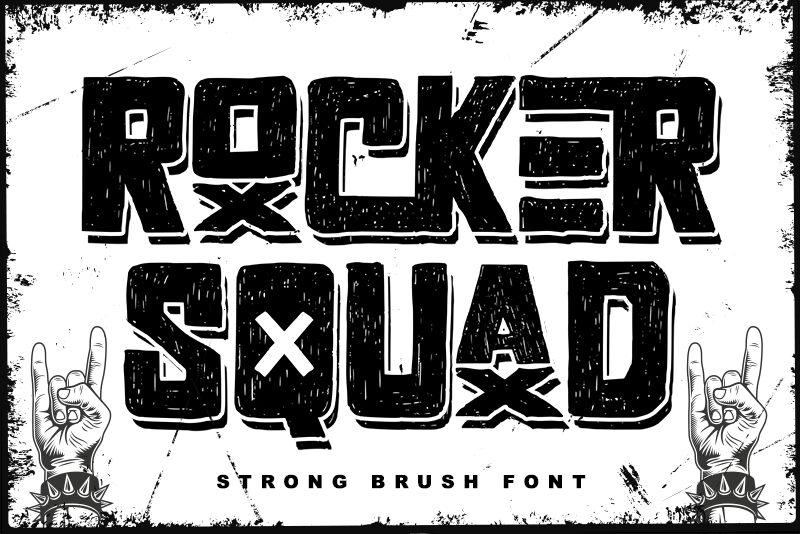
With its bold, semi-condensed form, Rocker Squad by Letterara stands out as a font that captures the rebellious spirit of urban street art. Its thick lettering embodies a cool attitude that's perfectly aligned with contemporary design projects. Whether it's emblazoned on sportswear or splashed across a dynamic logo, Rocker Squad is designed to make an impact.
Ideal for creative endeavors that demand attention, this display font works wonders on t-shirts, advertisements, and clothing brands aiming for an edge. Plus, with PUA encoding, designers can effortlessly access all the glyphs and swashes to enhance their artistic expression. Dive into the world of Rocker Squad and let your designs scream with personality!